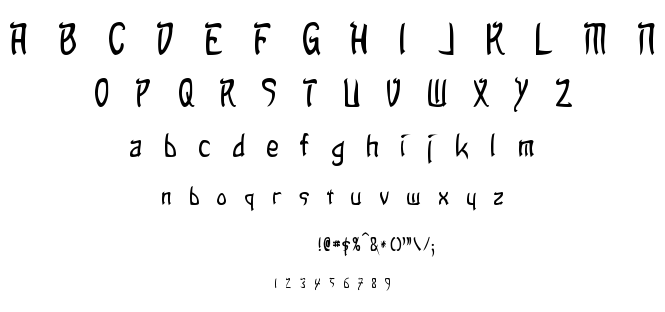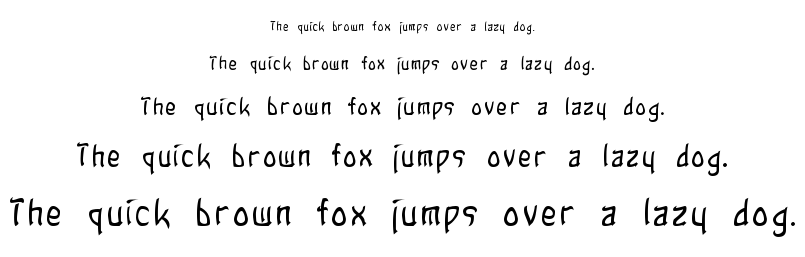
Former “Sands of Fire”. A custom font I made for an old fantasy campaign. Maintenance release with some error correction.
1.10 – June 13, 2011 – Many error corrections, accent characters and Euro symbol added